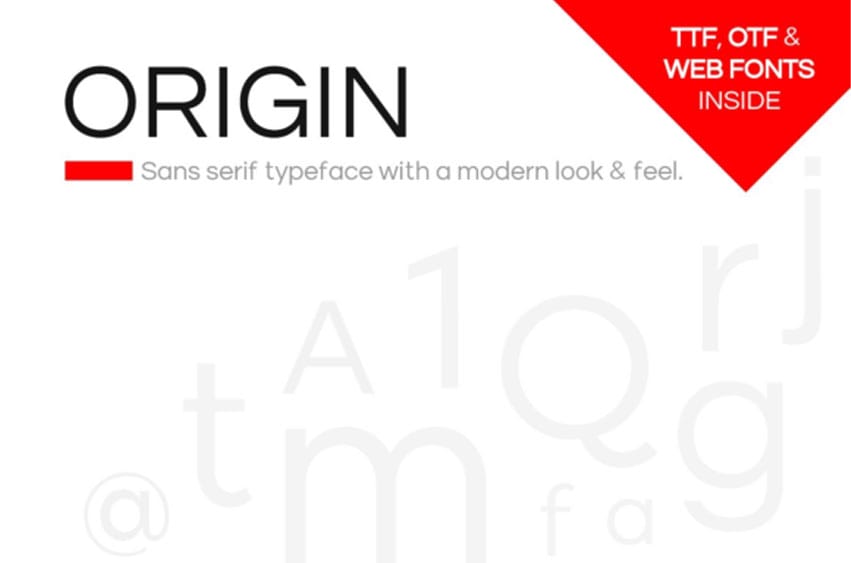
Origin Font is a modern sans serif typeface inspired by Swiss Design and other elegant typefaces that keep the minimalism at it’s level best.
It will be best suited to create nicely looking headlines (add some letter spacing and it will amaze you) as well as page content (in the good ‘Sans-Serif’ sense).